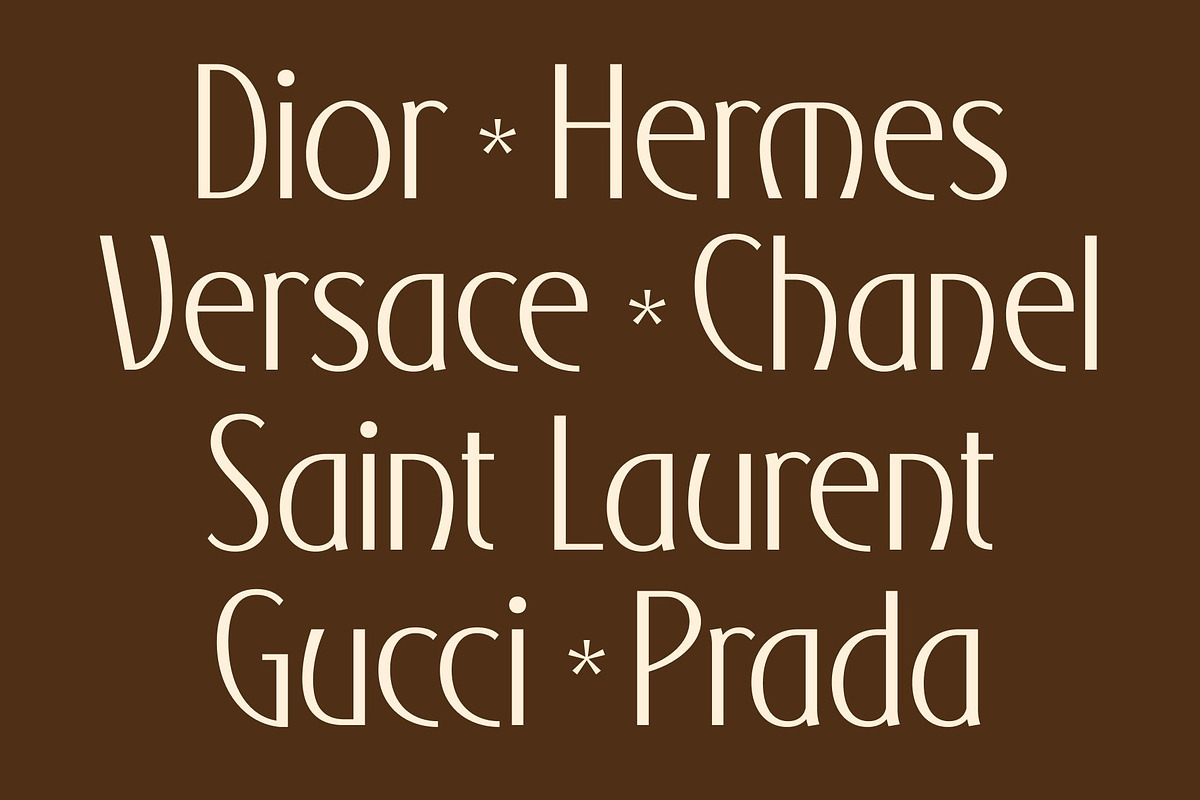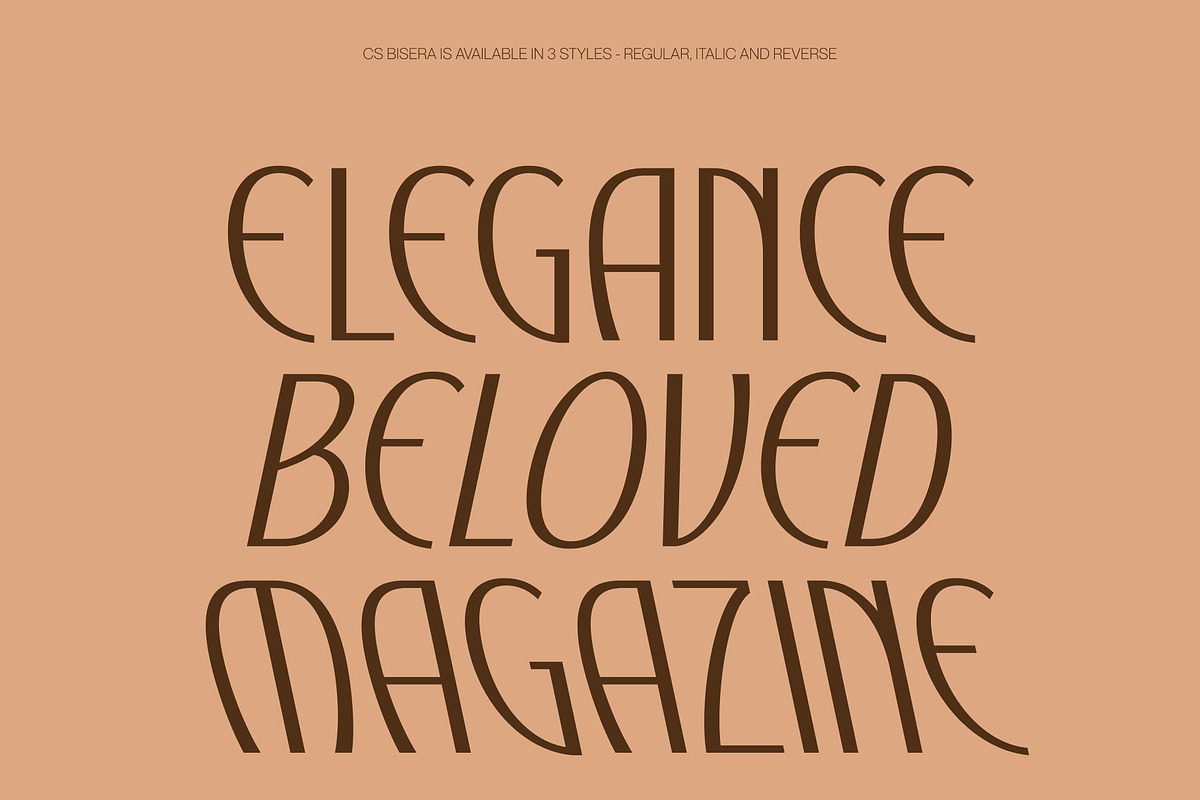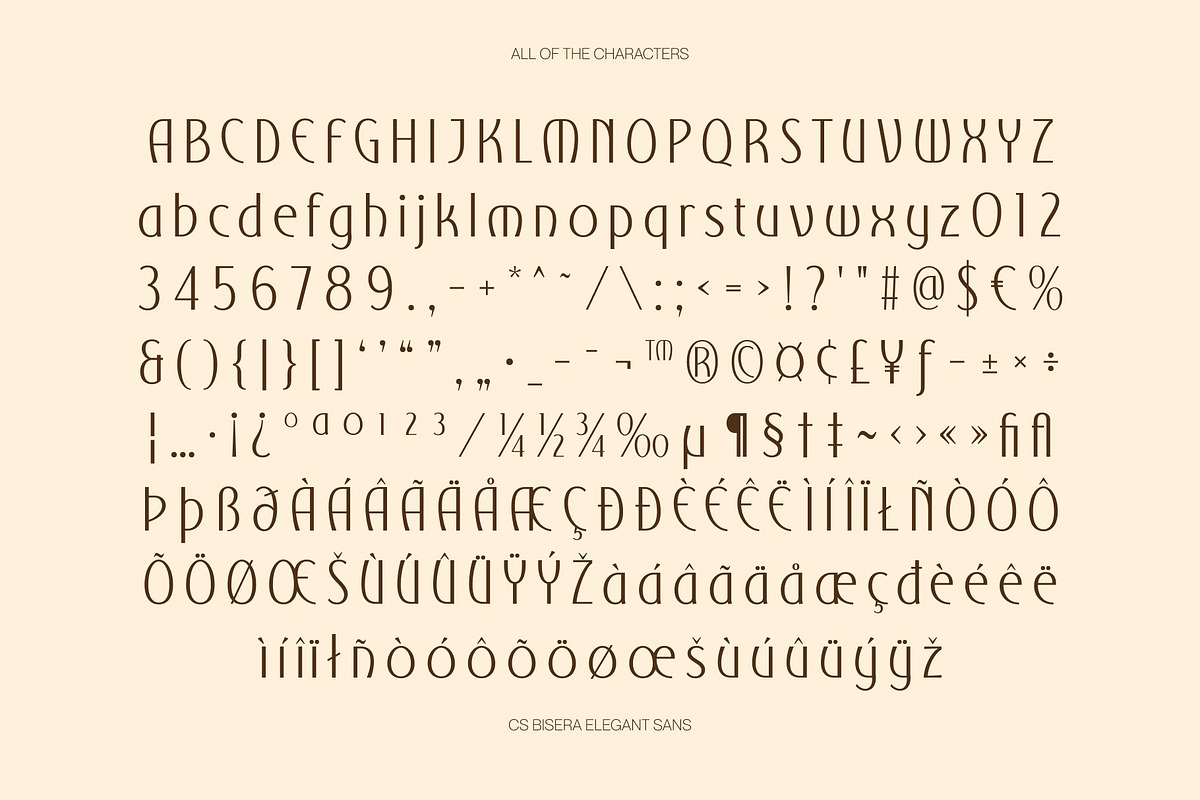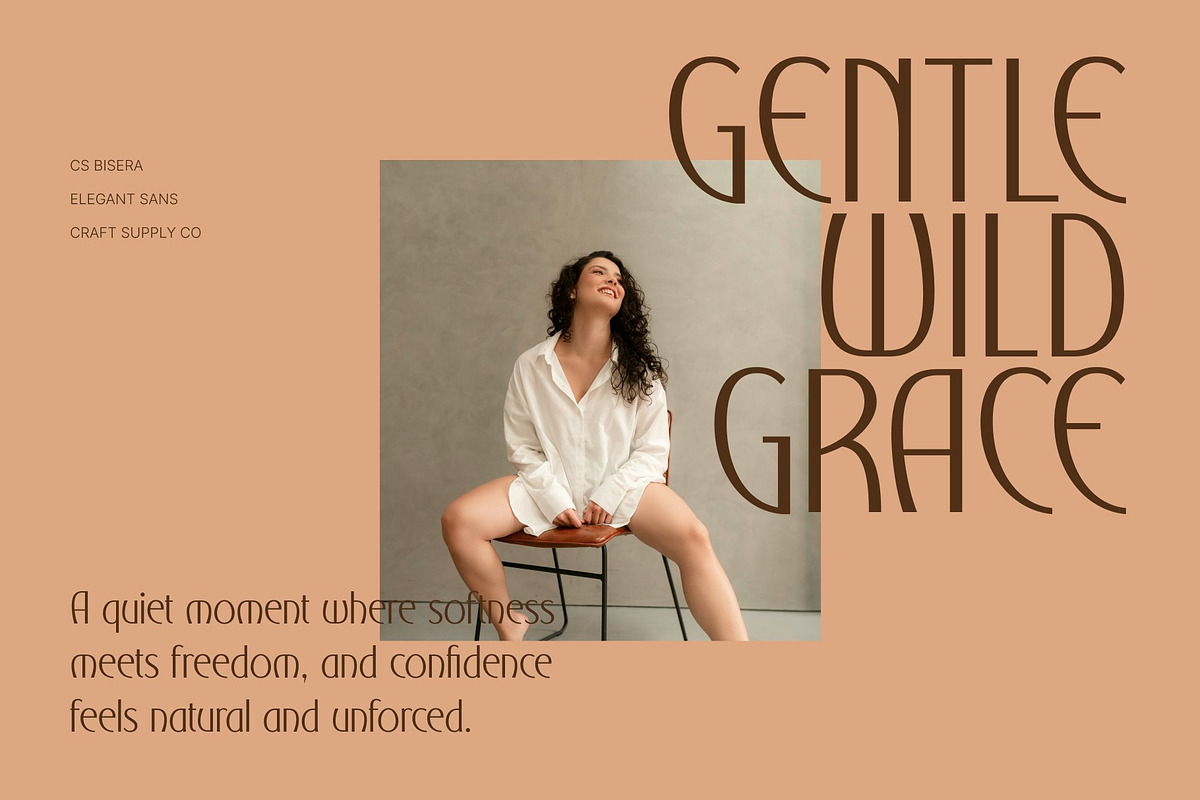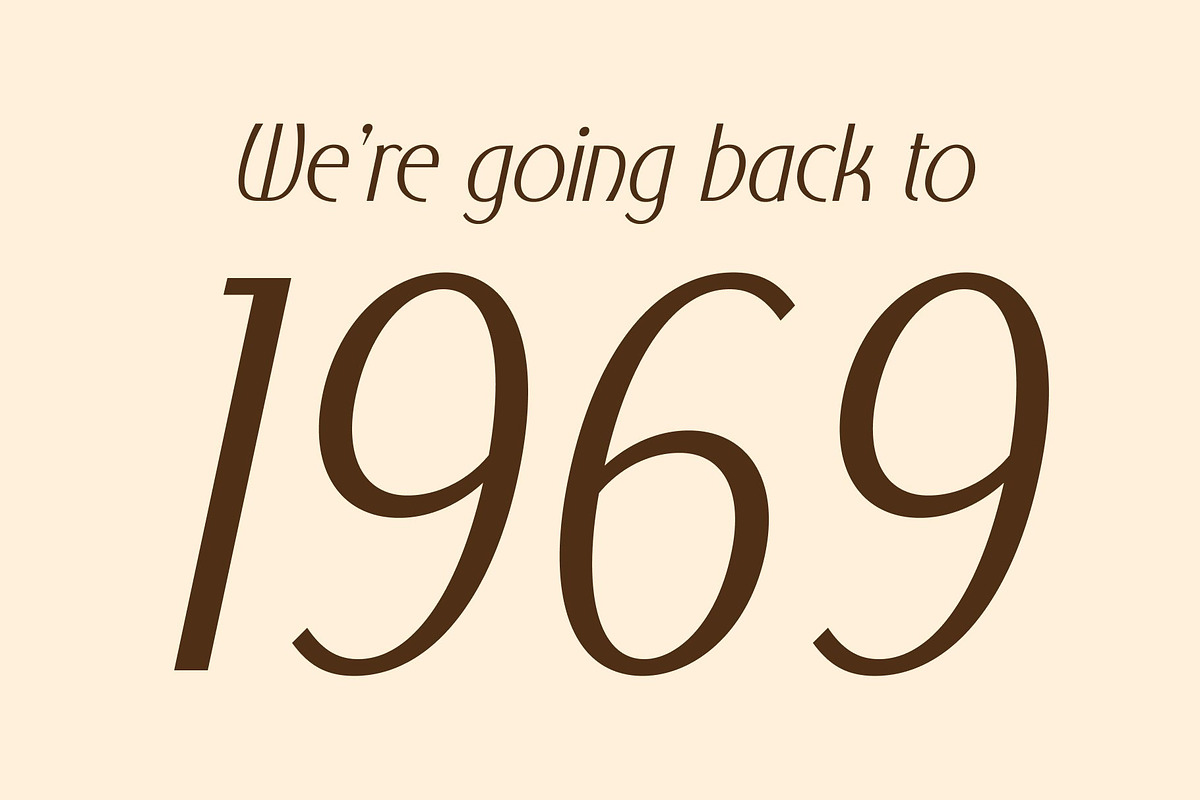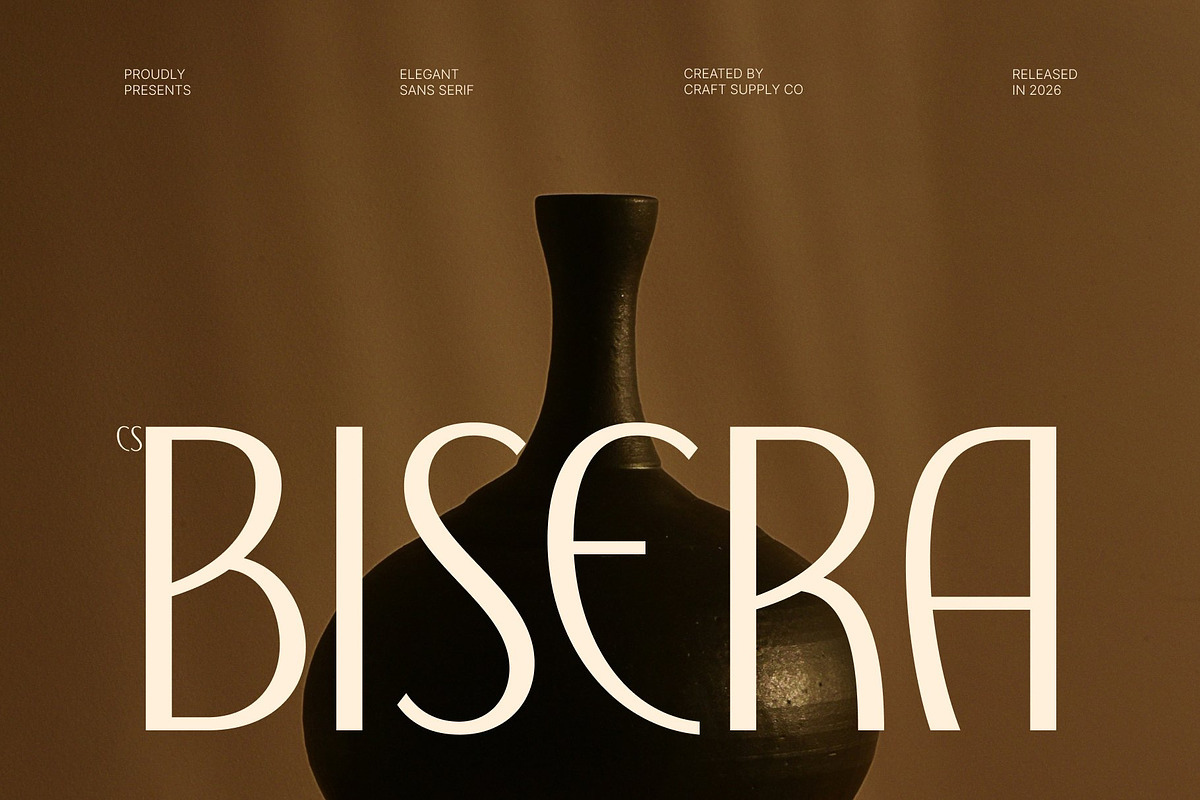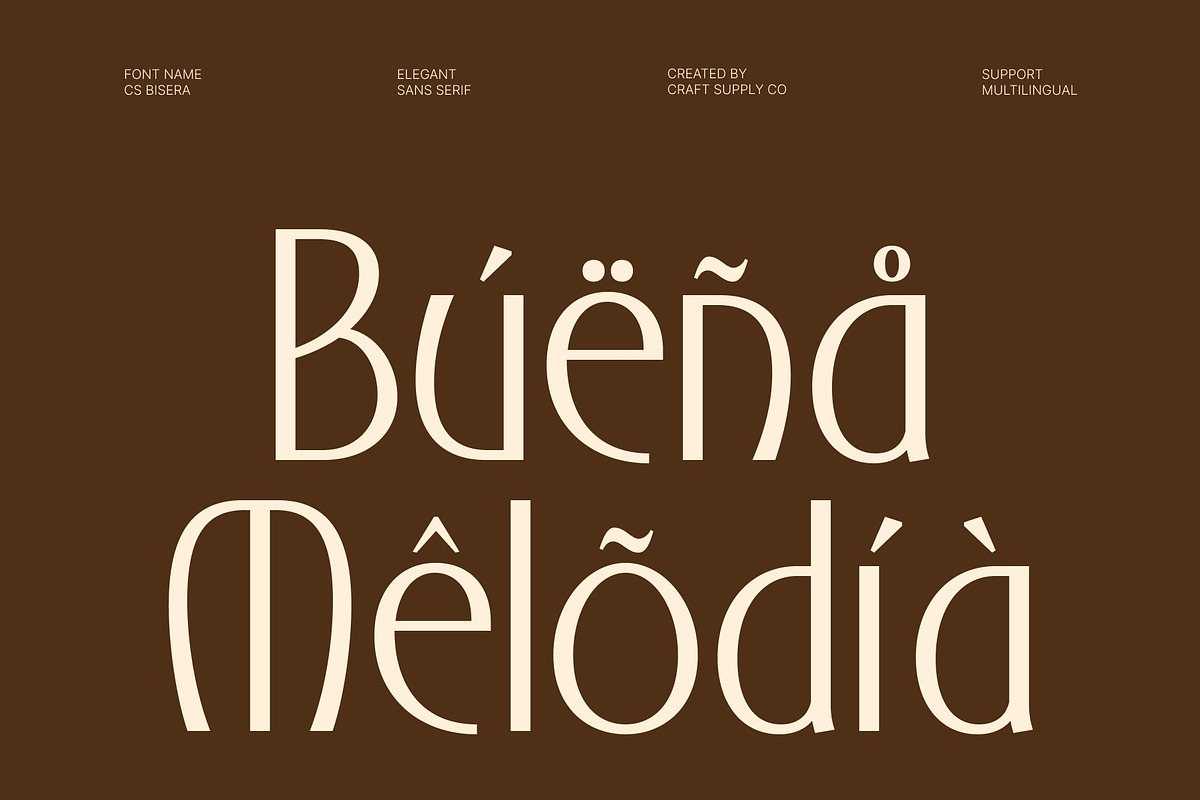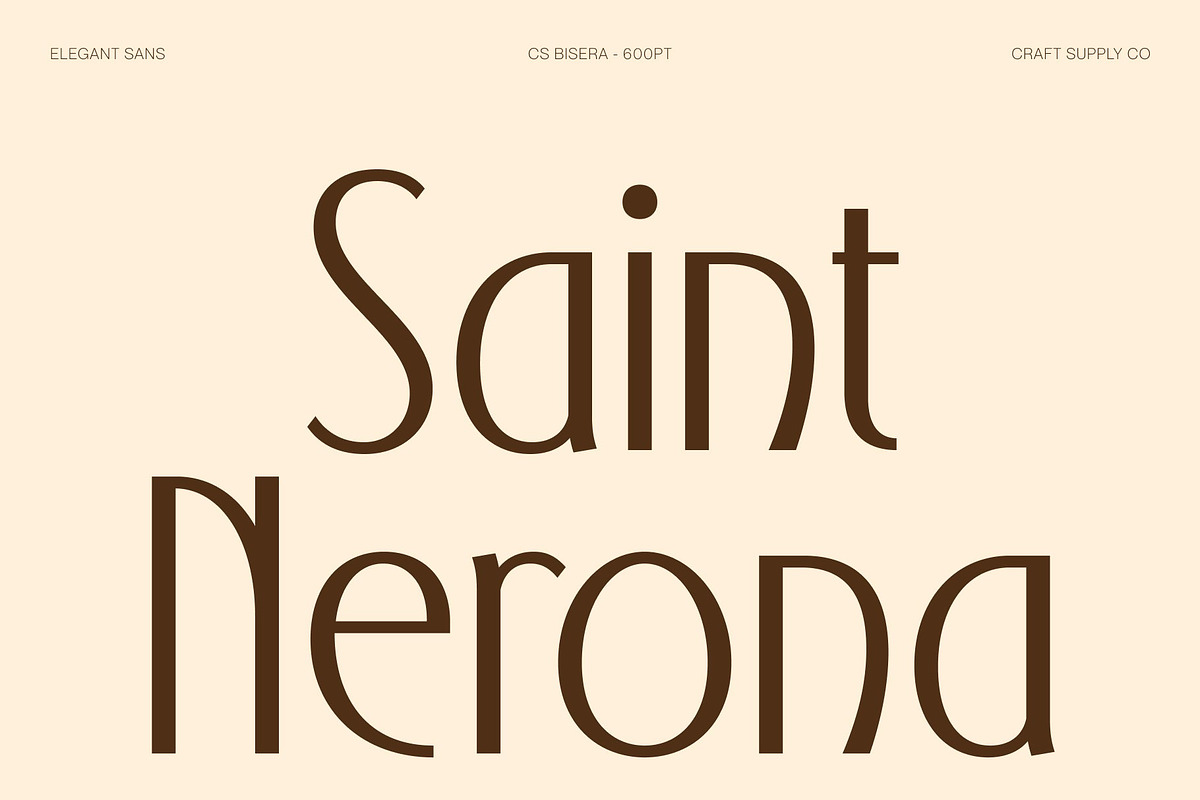
CS Bisera – Modern Sans Serif
CS Bisera – Decorative Modern Sans Serif with Organic Elegance
Modern Sans Serif with Decorative Charm This is a modern sans serif font that blends contemporary clarity with decorative sophistication. Designed with smooth lines and elegant organic curves, this typeface delivers a beautiful and charming impression that feels refined yet approachable. It brings a fresh personality to modern typography while maintaining a clean and professional presence.
Smooth Curves with Elegant Flow The defining feature of this font lies in its graceful curves and fluid shapes. Each letterform is crafted to feel soft, balanced, and visually harmonious, creating a natural rhythm across words and layouts. This gentle flow adds warmth and elegance, making the typeface both eye-catching and highly readable.
Clean Style with Sophisticated Personality Despite its decorative character, this font remains clean and versatile. Its modern construction ensures clarity across digital and print applications, allowing designers to create polished and professional compositions. The combination of simplicity and elegance makes the font adaptable to a wide range of creative directions.
Perfect for Branding, Editorials, and Creative Projects From branding and posters to editorial layouts and social media graphics, this font offers a flexible typographic solution. Its blend of decorative charm and modern refinement ensures your designs feel sophisticated, stylish, and visually captivating.
CS Bisera Regular
CS Bisera Italic
CS Bisera Reverse Italic